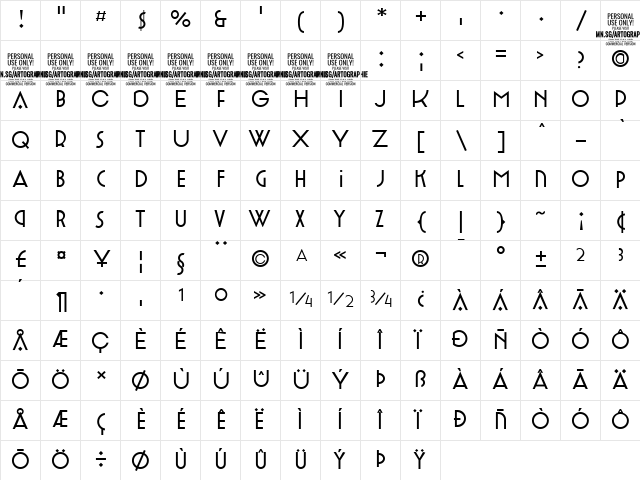
Artographie Light Regular
| Foundry | Mans Greback |
| Designer | Mans Greback |
Design Context for Artographie Light Typeface
Artographie Light is a composed and adaptable typeface that performs quietly and consistently across a wide range of design contexts. Its slender proportions lend an understated elegance to any composition.